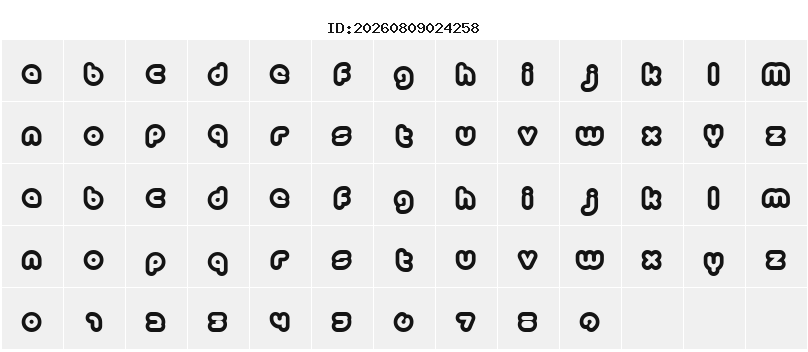
PicoWhite Preview
• Font Name: PicoWhite
• Font ID: Macromedia Fontographer 4.1J PicoWhite
• Full Font Name: PicoWhite
• Version: Macromedia Fontographer 4.1J 07.7.15
• PostScript Name: PicoWhite
About PicoWhite.ttf
PicoWhite.ttf is a modern, elegant sans-serif font designed for ultimate readability and visual harmony. Perfect for branding, headlines, web design, and print materials.